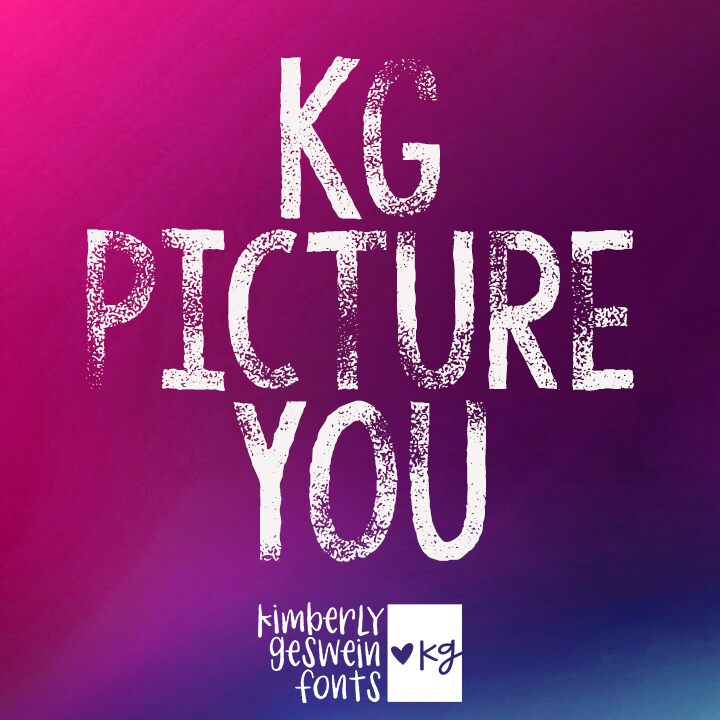
KG Picture You Normal
KG Picture You font by Kimberly Geswein is a free eroded display font in a condensed style. With an urban and gritty aesthetic, this typeface integrates grunge textures that give off a modern vibe. Characters presented with thin lines are cut through with thick horizontal lines and other flaws for an instantly distressed appearance.
They say an image is worth a thousand words but that’s not the case with this font as it can transform both in large display projects and small texts. Include KG Picture You in branding designs, merchandise design (t-shirts/hoodies), book titles, magazines, posters, flyers/cards, even movie posters.